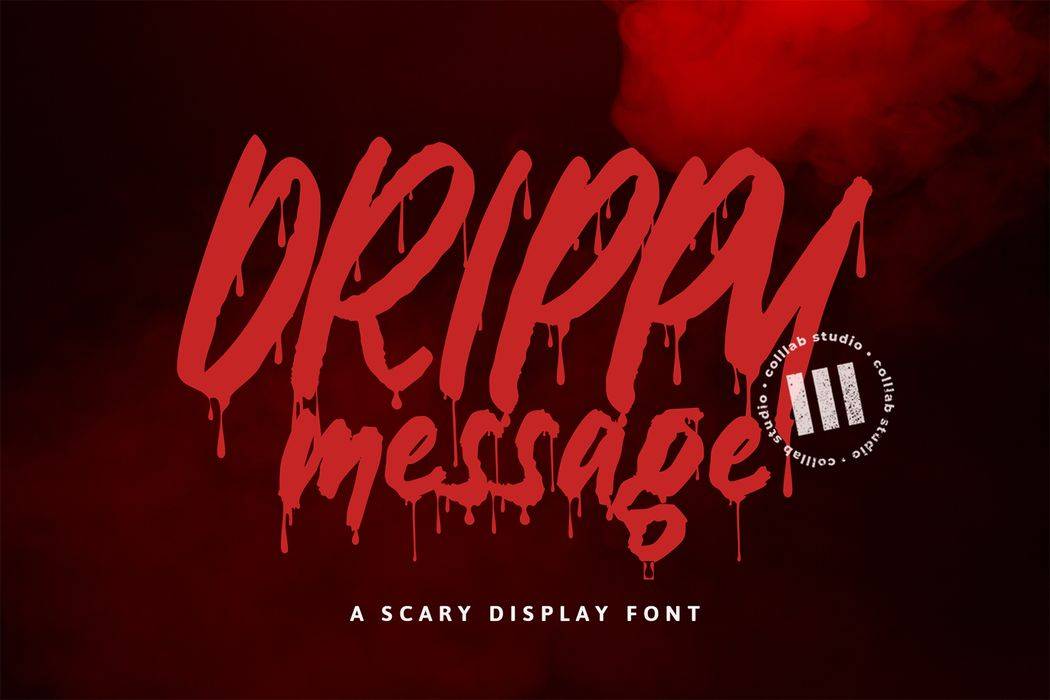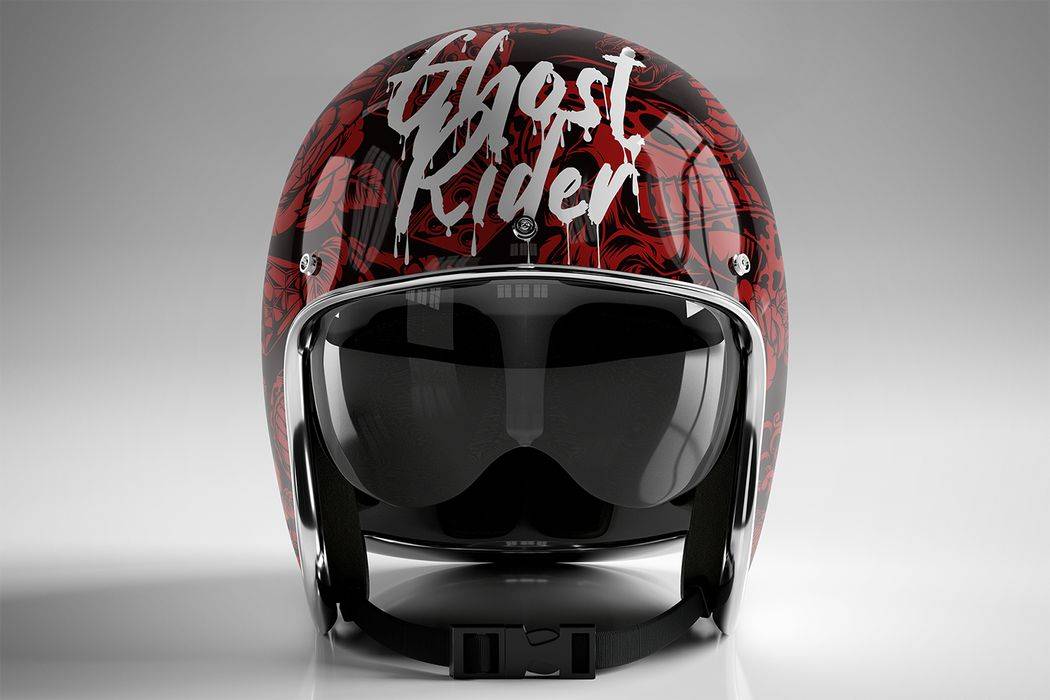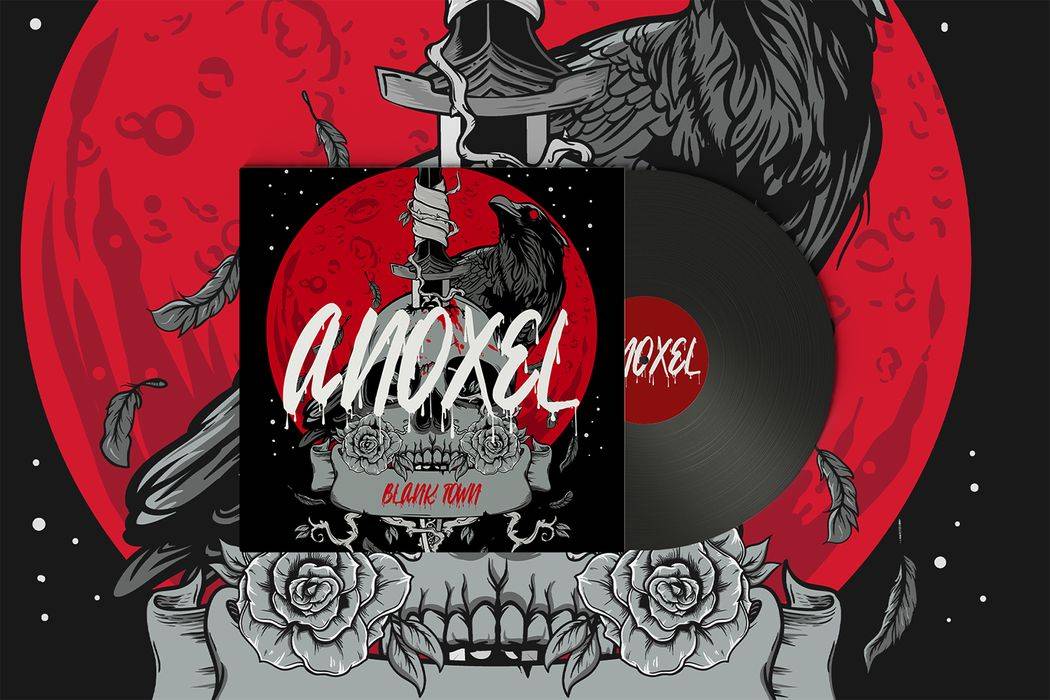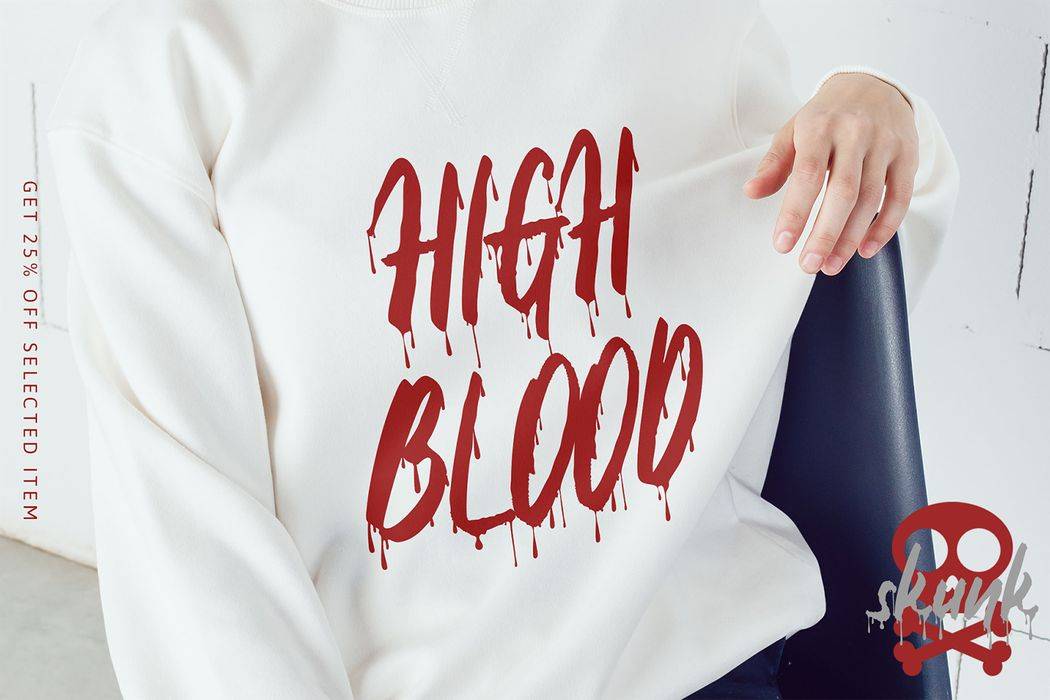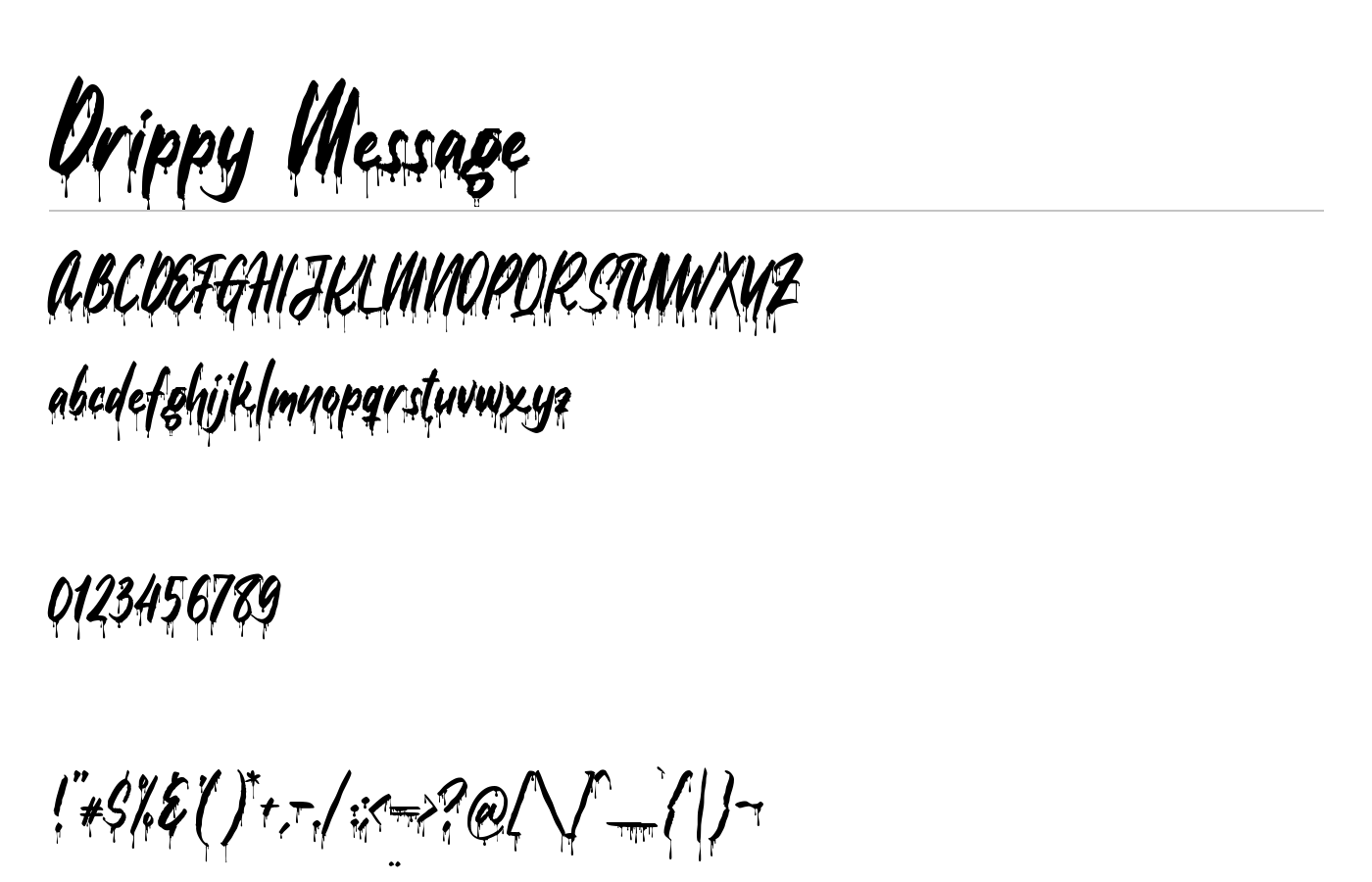
Drippy Message is a bold, hand-drawn script font with a striking drip effect that gives it a spooky, edgy vibe. Its irregular, jagged letterforms and dripping strokes make it perfect for Halloween-themed designs, horror posters, or any project needing a dramatic, graffiti-like style. This font works best in display settings like logos, headlines, or event posters where its unique personality can really stand out.
Drippy Message Font
About Drippy Message Font
| Font family | Drippy Message Font |
| Designer | Colllab Studio |